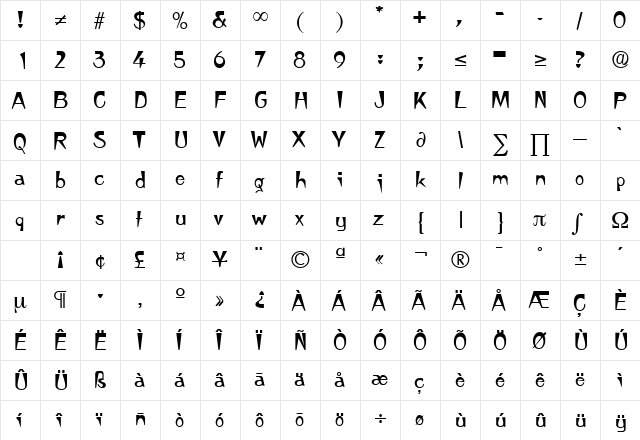
Japanette DB Medium Font Preview
Japanette DB Medium
Design Context for Japanette DB Typeface
Japanette DB is a composed and adaptable typeface that performs quietly and consistently across a wide range of design contexts.